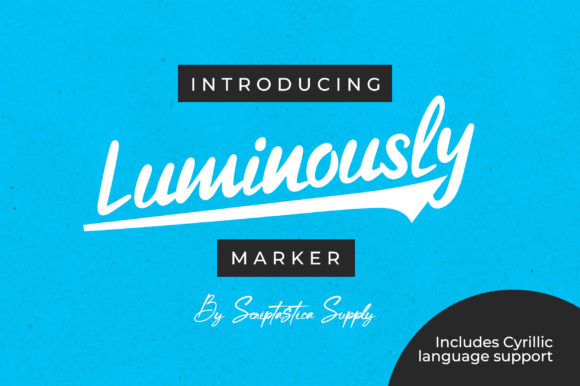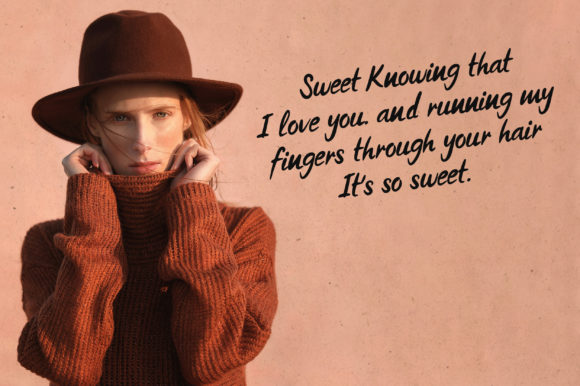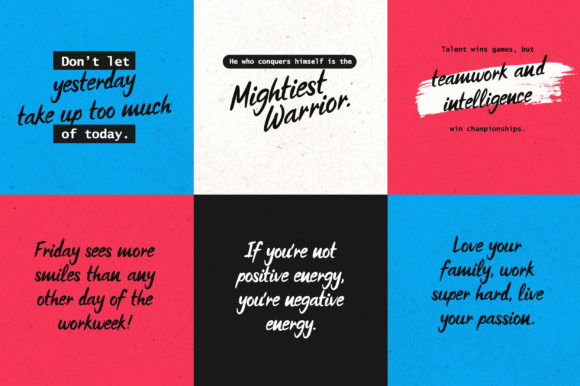
Luminously Font
About Luminously Font
“Luminously” is a delicate and stylish script font designed to bring an elegant touch to various creative projects. Its versatile nature makes it suitable for a range of applications, including logos, branding projects, labels, photography, watermarks, special events, and more. This font is crafted to provide a beautiful script taste, adding sophistication and style to your designs.
The delicate quality of “Luminously” is evident in its graceful letterforms and refined strokes. This makes the font particularly well-suited for projects that demand a subtle and stylish script, such as watermarking images, creating labels, or designing for special events.
In branding projects, “Luminously” can contribute to a polished and sophisticated visual identity. Its stylish script adds a touch of elegance, making it suitable for logos and other branding materials where a refined aesthetic is desired.
Whether applied to photography, labels, or other lovely projects, “Luminously” enhances the overall presentation with its beautiful script taste. The font’s versatility allows it to adapt to different themes and contexts, providing designers with a valuable tool for creating visually appealing and tasteful designs.
In summary, “Luminously” is a script font that goes beyond mere letterforms; it becomes a design asset that brings delicacy and style to your projects. With its suitability for various applications, this font adds a touch of sophistication, making it a valuable choice for creating beautiful and stylish visuals across a range of design endeavors.